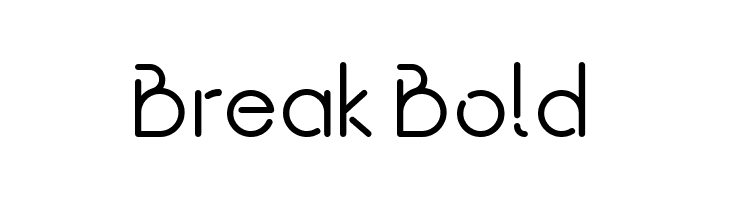
A modern, geometric font with clean lines and a futuristic aesthetic.
A minimalist, ultra-lightweight geometric font with a modern aesthetic.
A modern, geometric font with clean lines and a minimalist style.
A minimalist, geometric font with thin, uniform strokes and a modern aesthetic.
A modern, geometric font with thin, consistent lines and a minimalist style.
A modern geometric sans-serif font with consistent stroke widths and a clean design.
A modern, minimalist font with geometric shapes and clean lines.
A modern, geometric font with clean lines and rounded edges.
A modern, rounded font with geometric structure and uniform stroke width.
A modern, clean sans-serif font with excellent readability and balanced proportions.